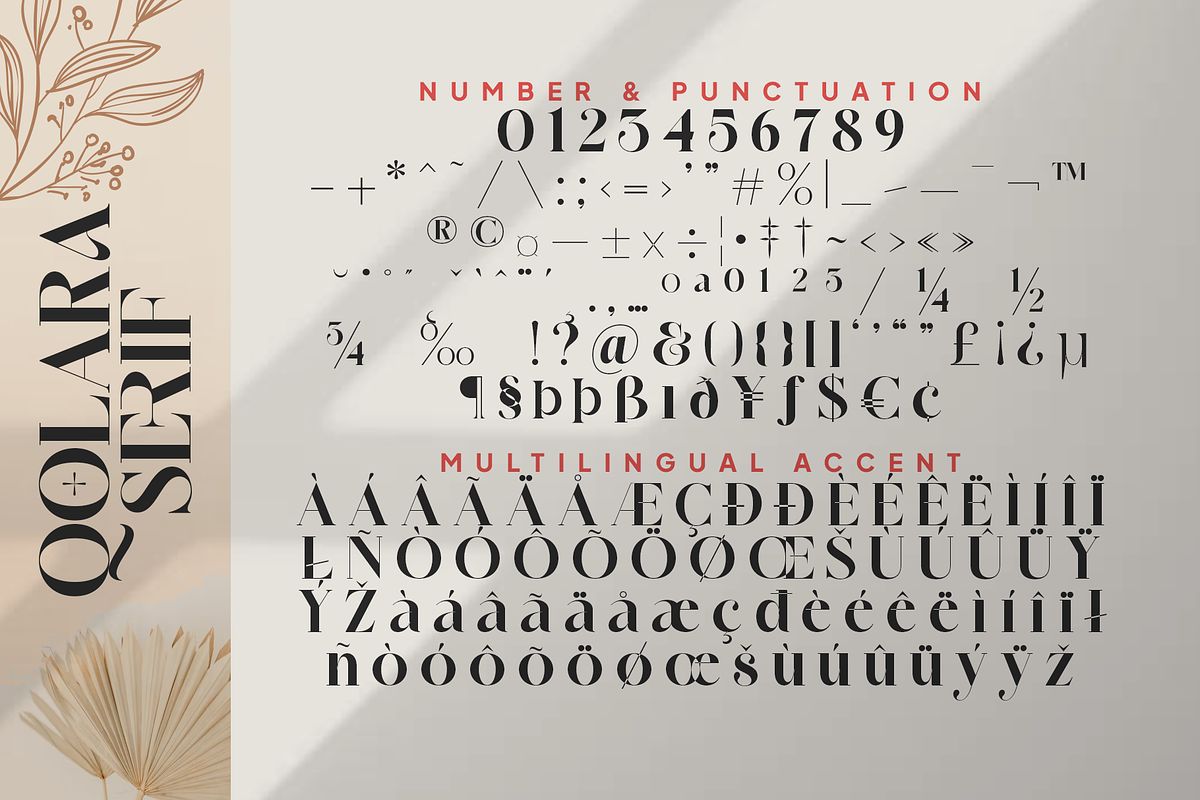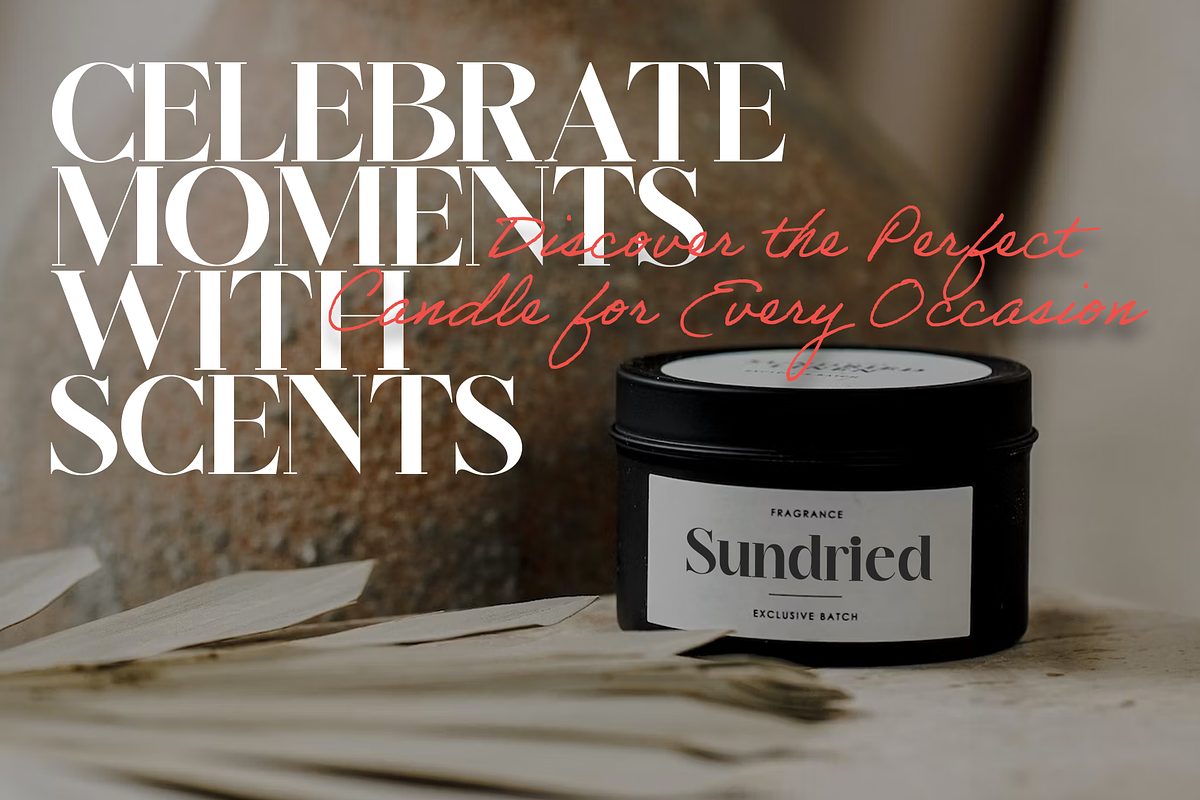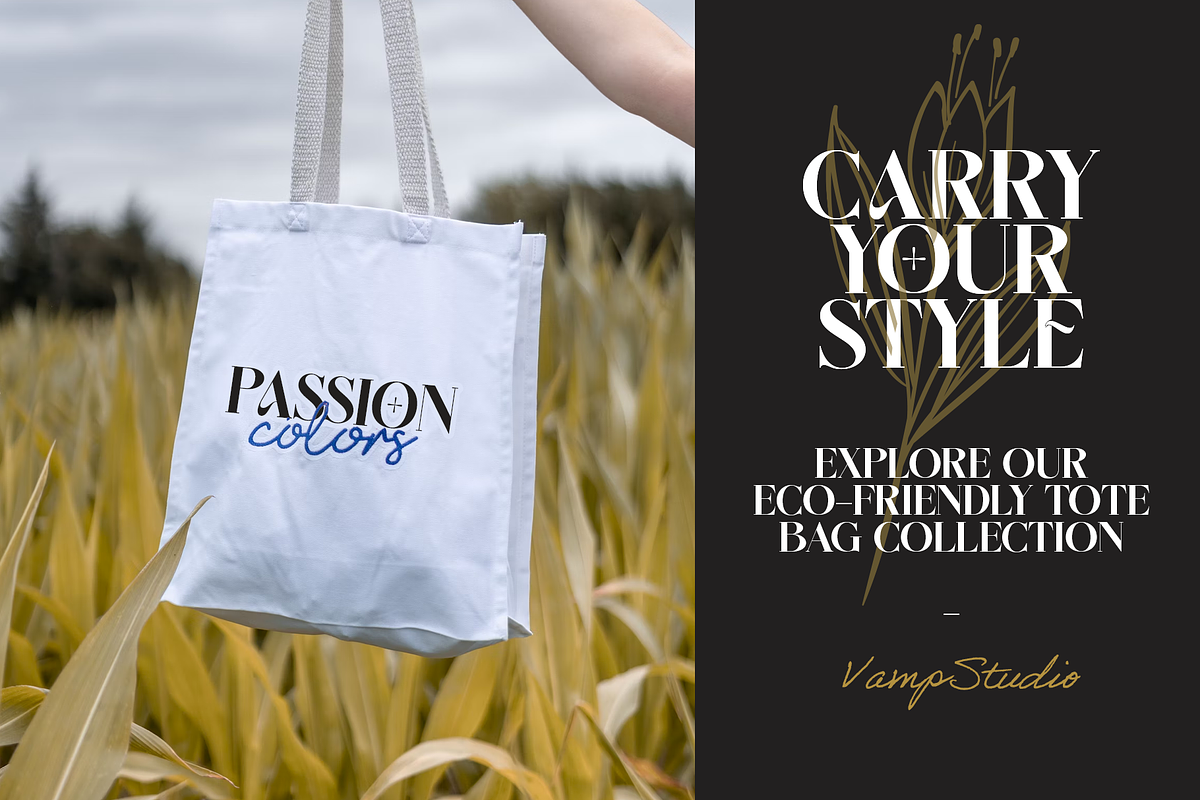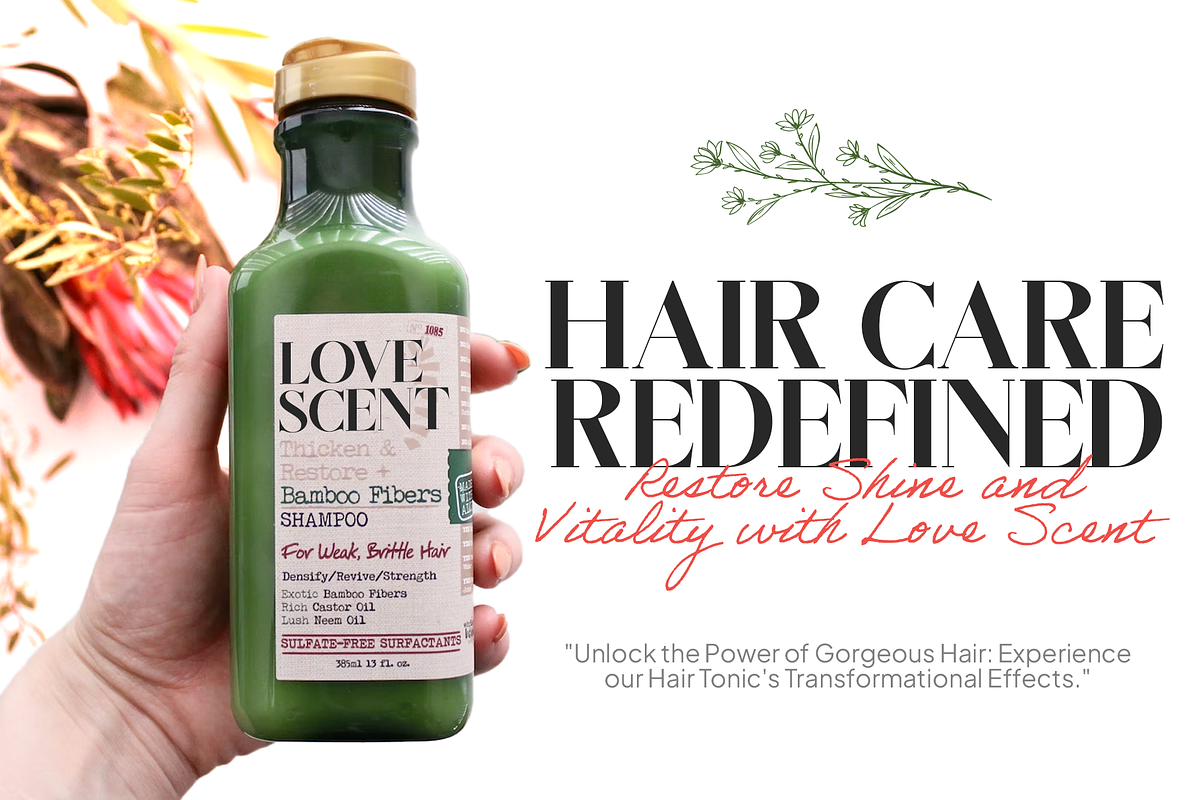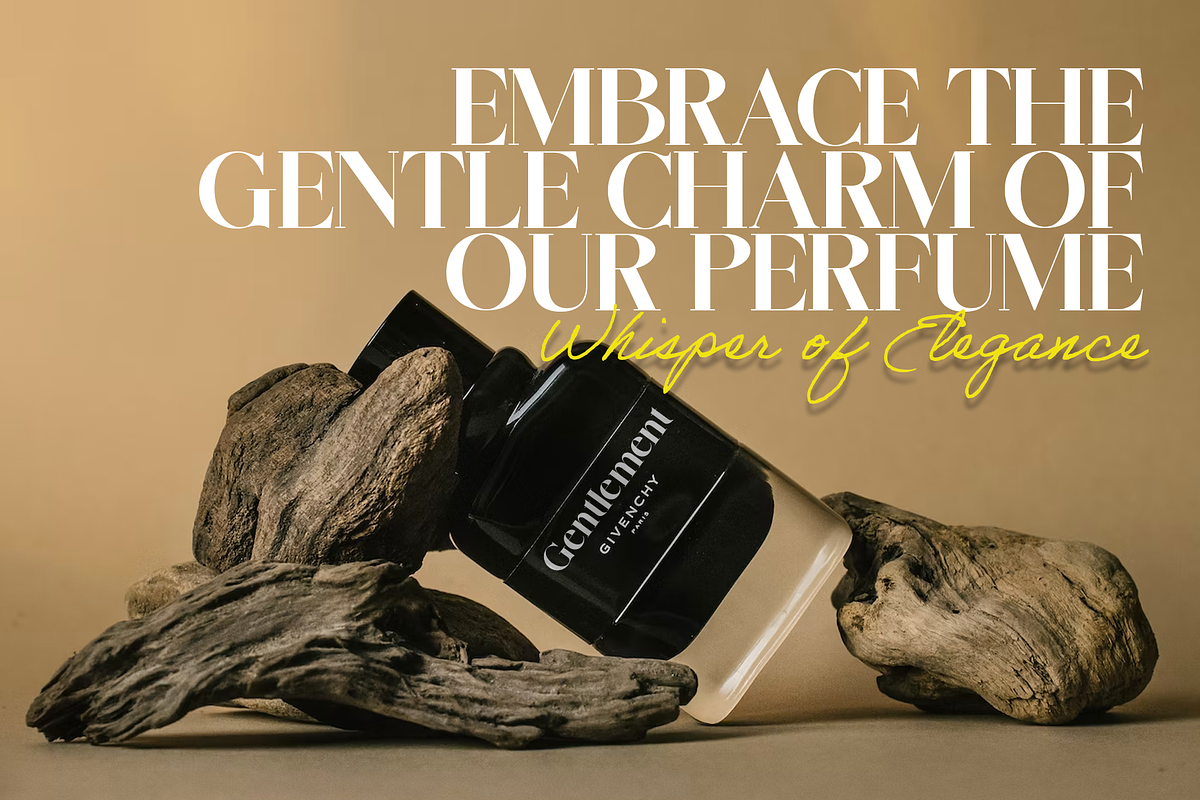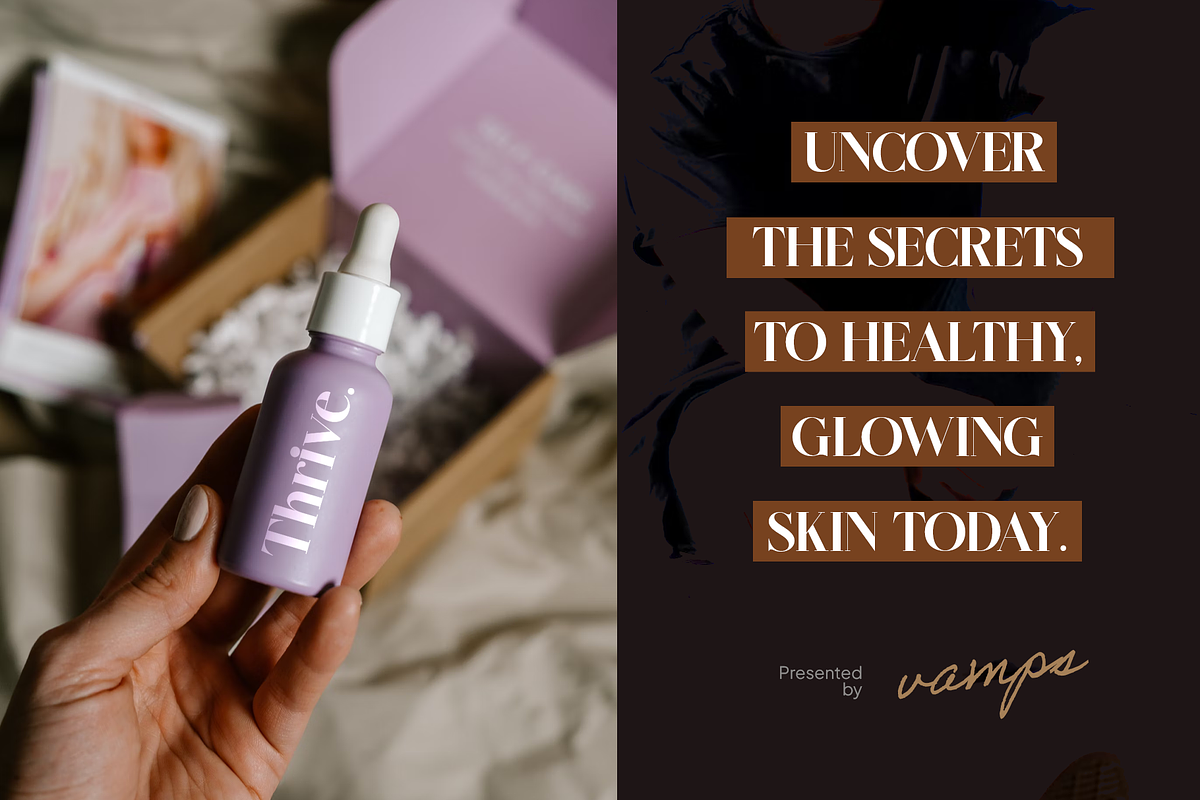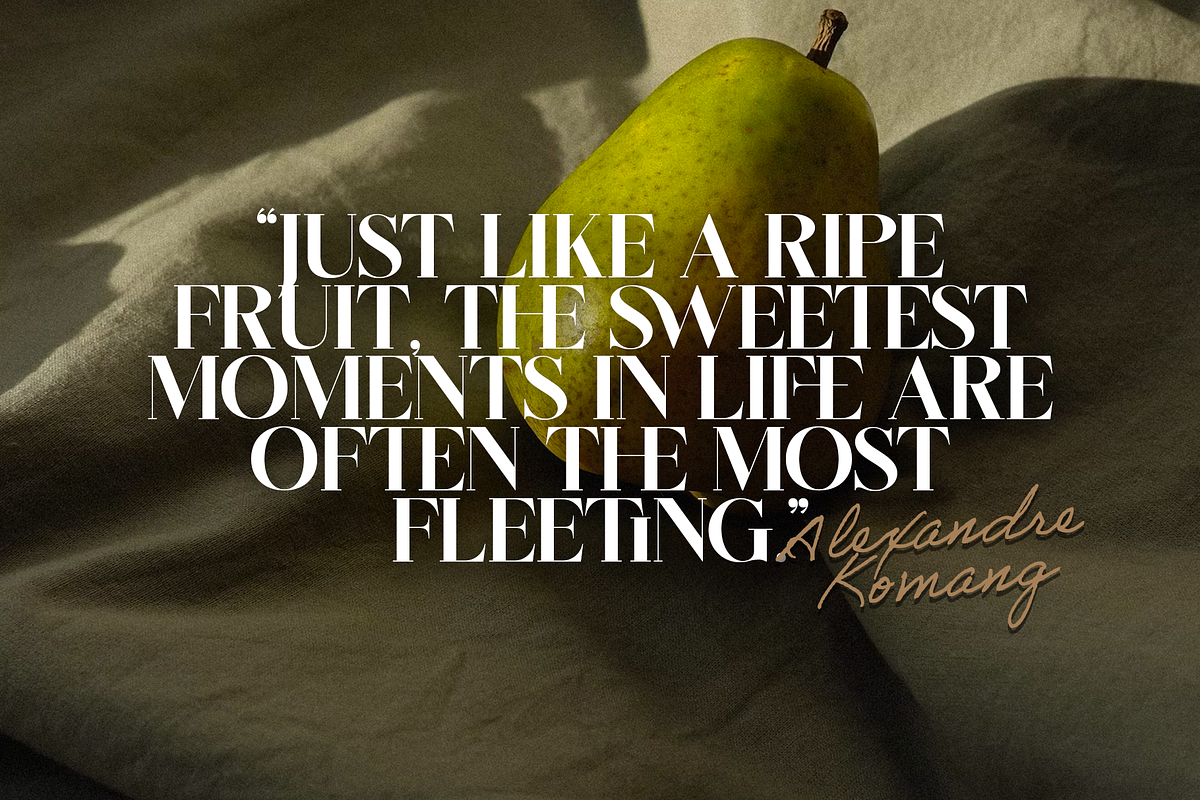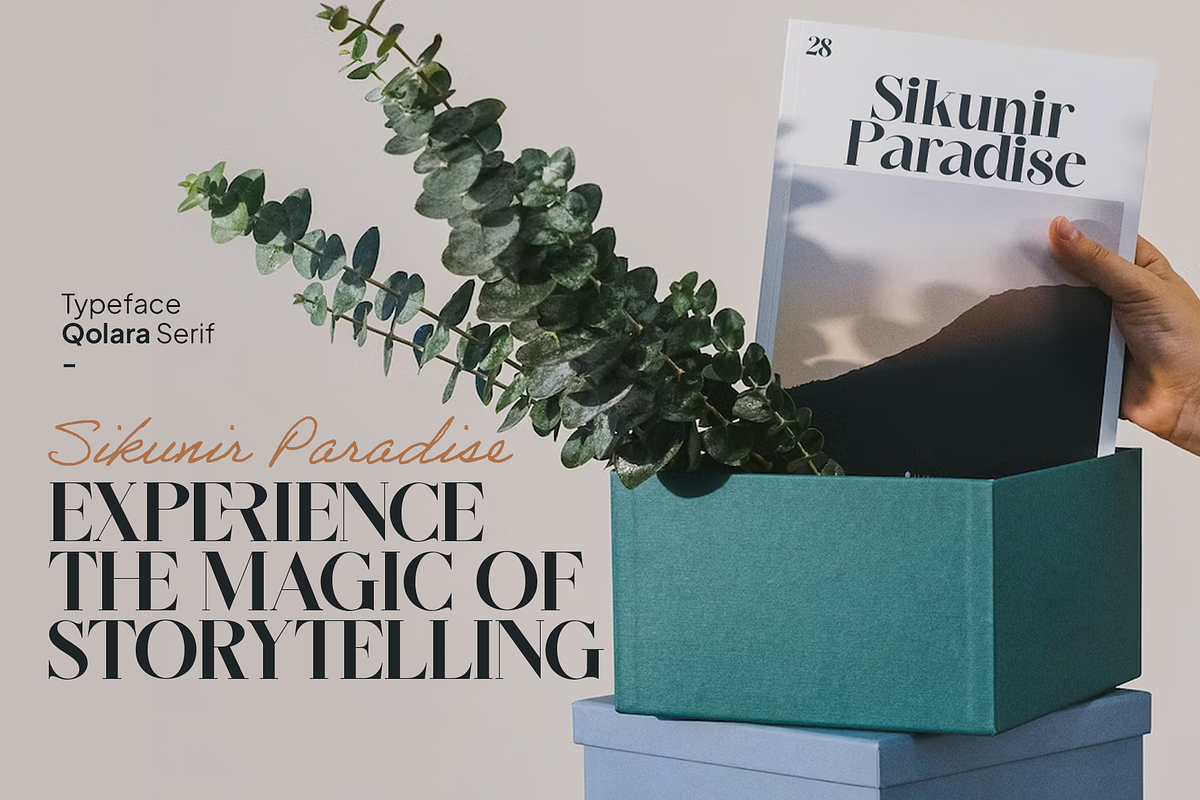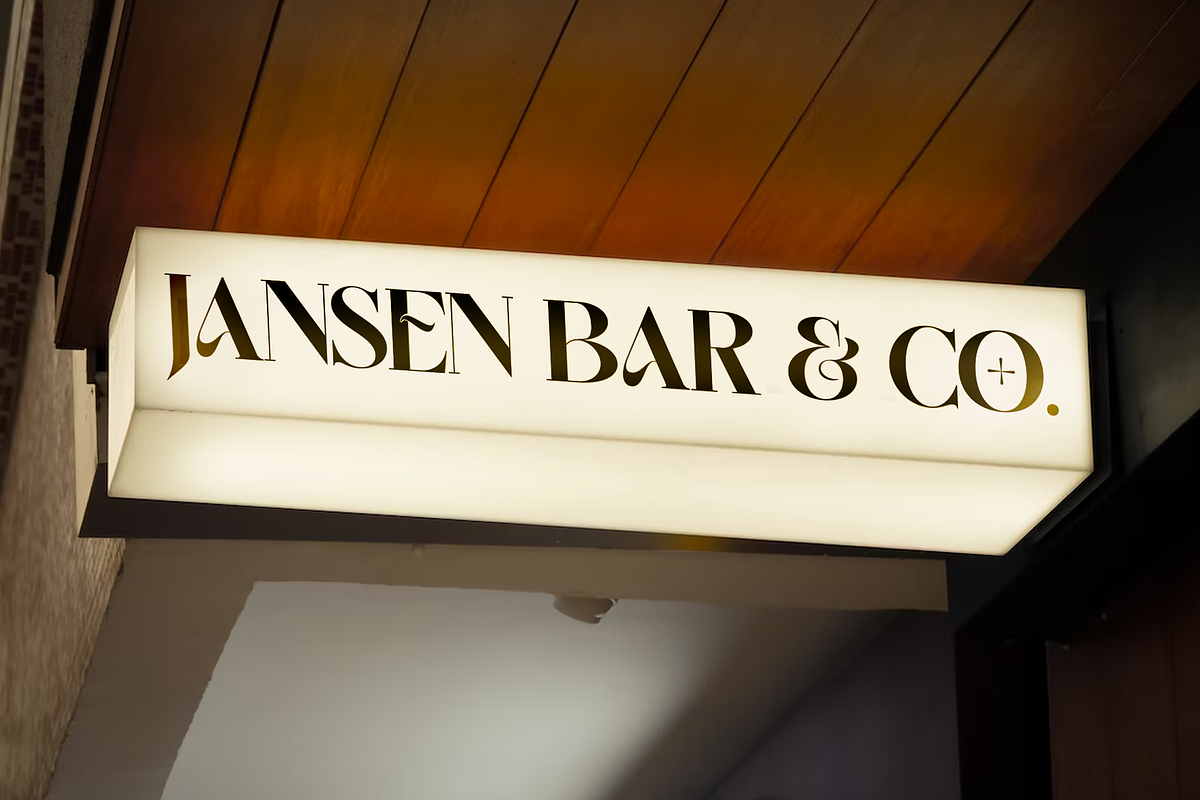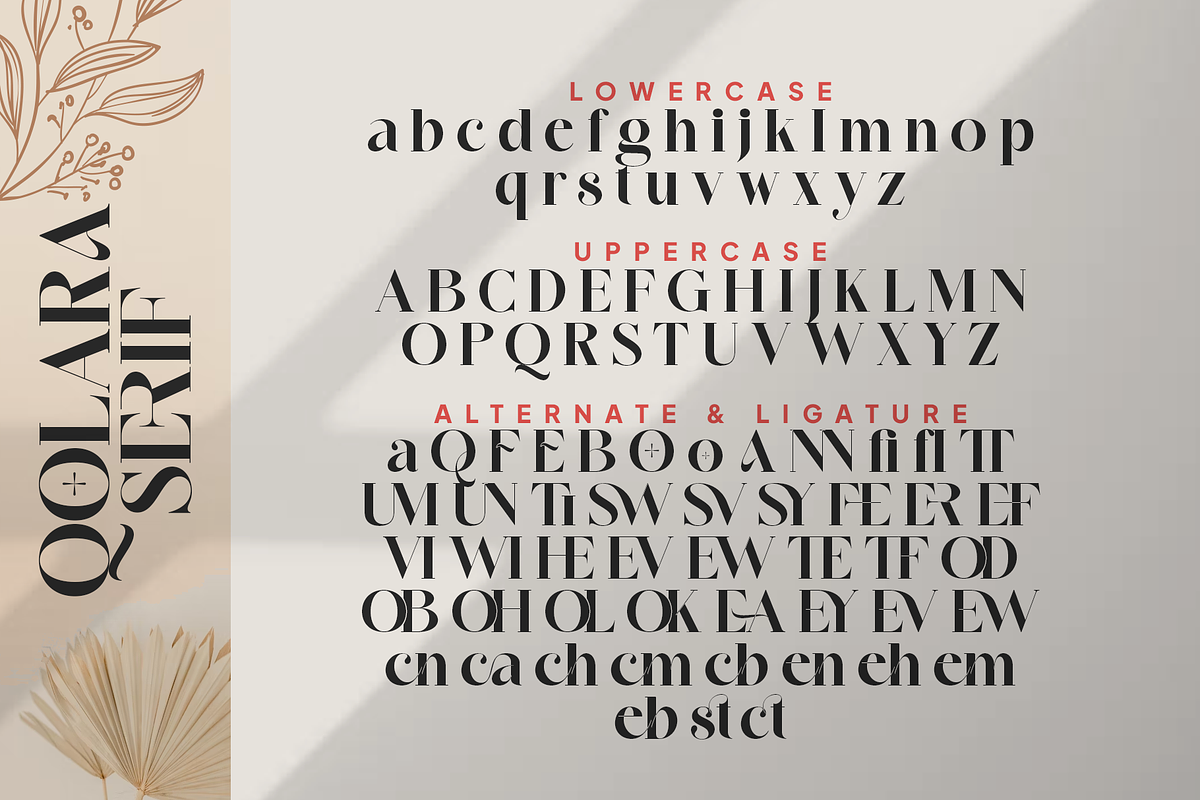
Qolara Elegant Serif
Qolara serif is a modern elegant and stylish serif typeface. This font looks very simple, clean, and elegant. Specially designed by skilled hands makes this font is the perfect fit for all your big projects.
Qolara serif is perfect for branding projects, logo, wedding designs, social media posts, advertisements, product packaging, product designs, label, photography, watermark, invitation, stationery and any projects that need luxury and modern taste.
- Ligature & Alternate
- Fonts include multilingual support for; Afrikaans, Albanian, Czech, Danish, Dutch, English, Estonian, Finnish, French, German, Hungarian, Italian, Latvian, Lithuanian, Norwegian, Polish, Portuguese, Slovak, Slovenian, Spanish, Swedish.